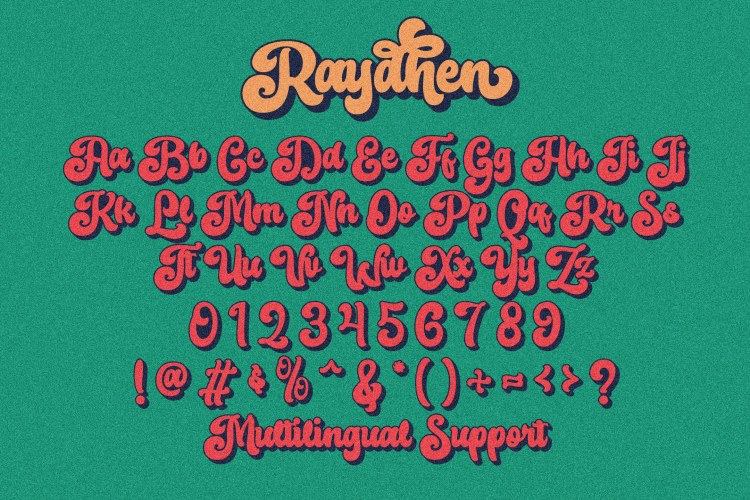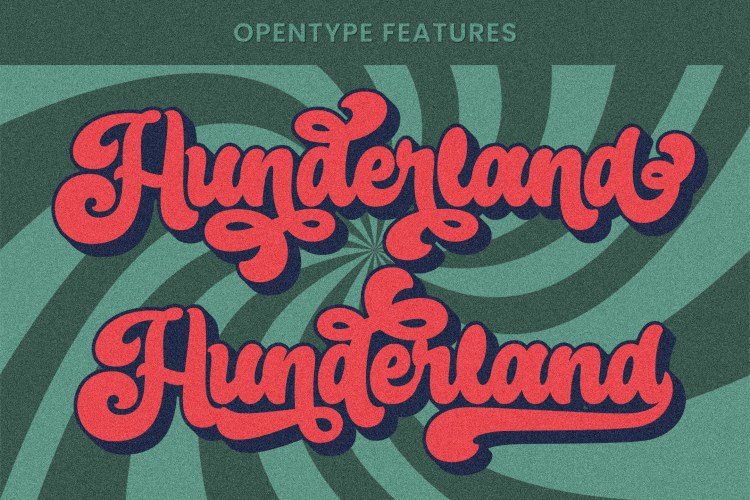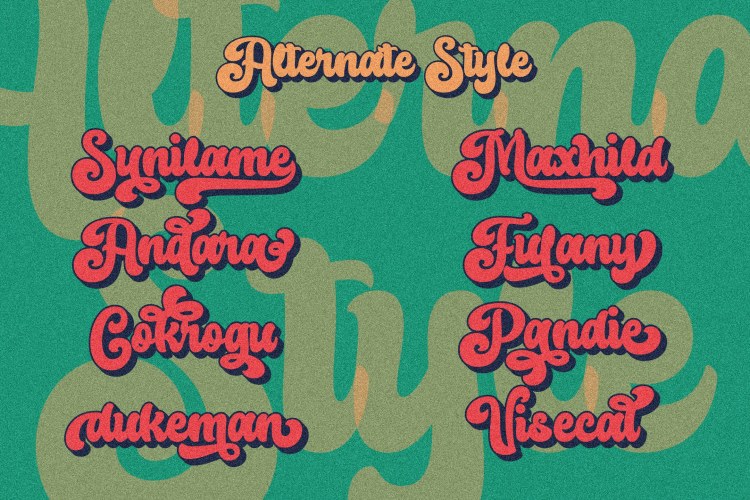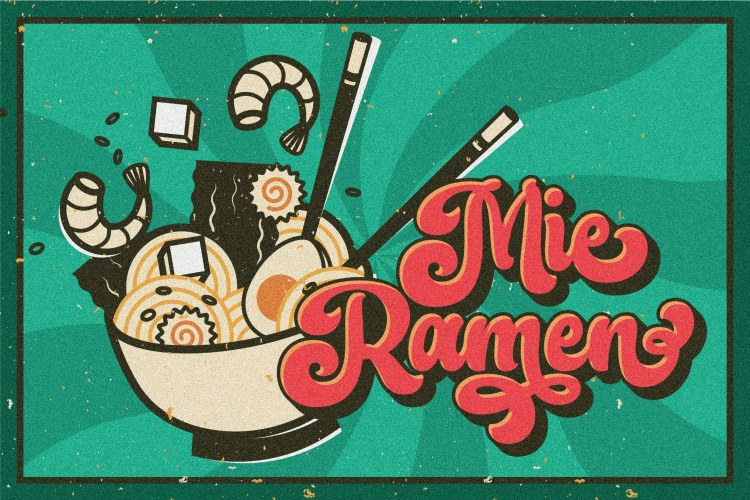
Raydhen – Retro Font with Extrude
Raydhen is a fun, retro-style script display font that is ready to take your designs to the next level. Add it to your vintage-inspired posters, stickers, apparel, or social media posts and you will definitely impress your audience.
This font is PUA encoded, which means you can access all of the glyphs and swashes with ease!
Full set of Upper & Lowercase Character
Number & Punctuation
Multilingual Language
PUA encoded
Opentype Features
Many Alternate
Extruded Style
Raydhen – Retro Font with Extrude is a Display Fonts font that brings a professional and versatile look to your projects. Raydhen is a fun, retro-style script display font that is ready to take your designs to the next level.